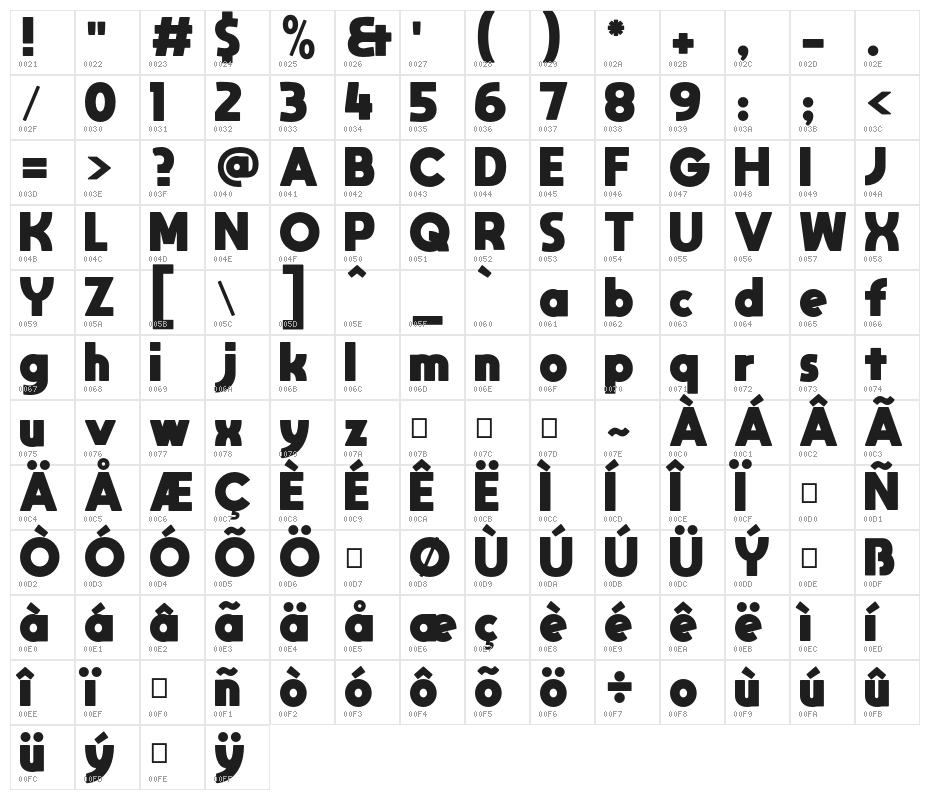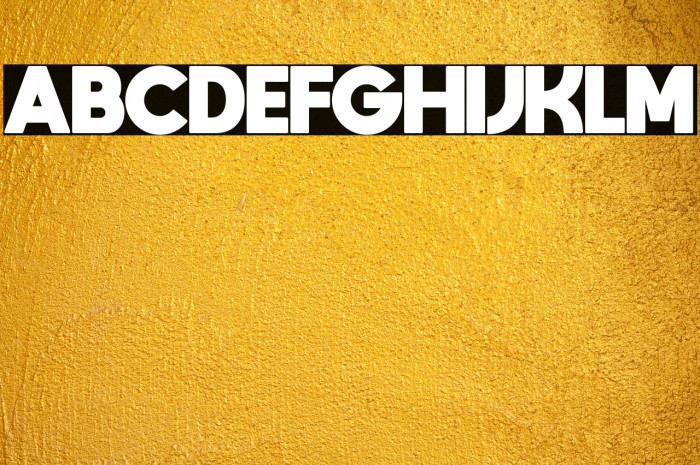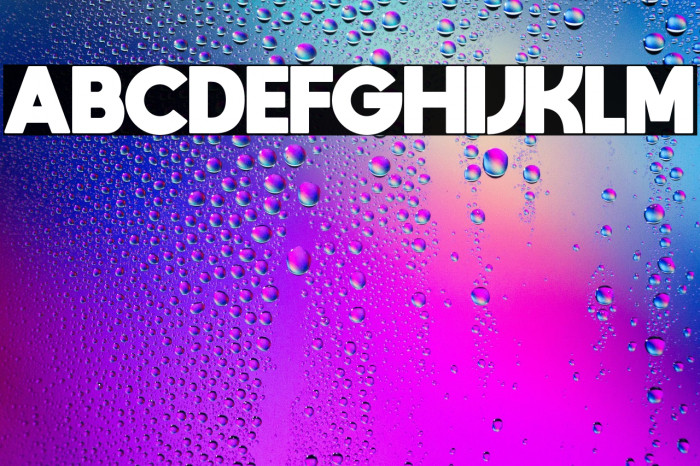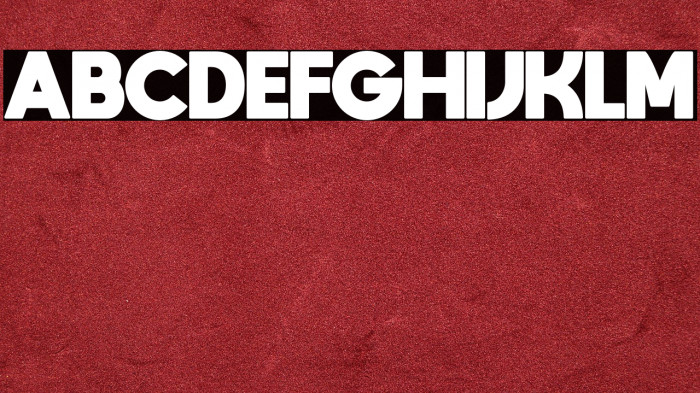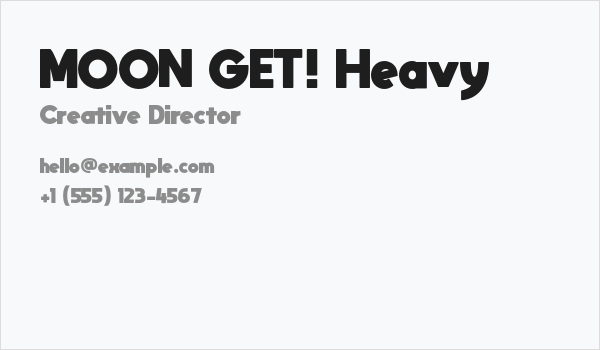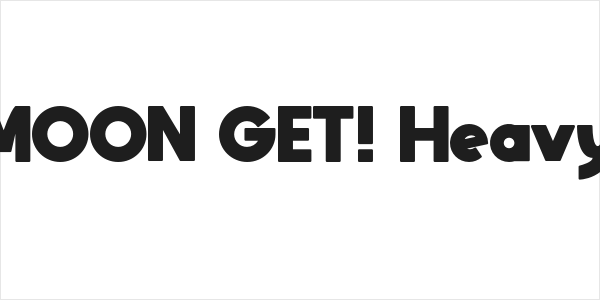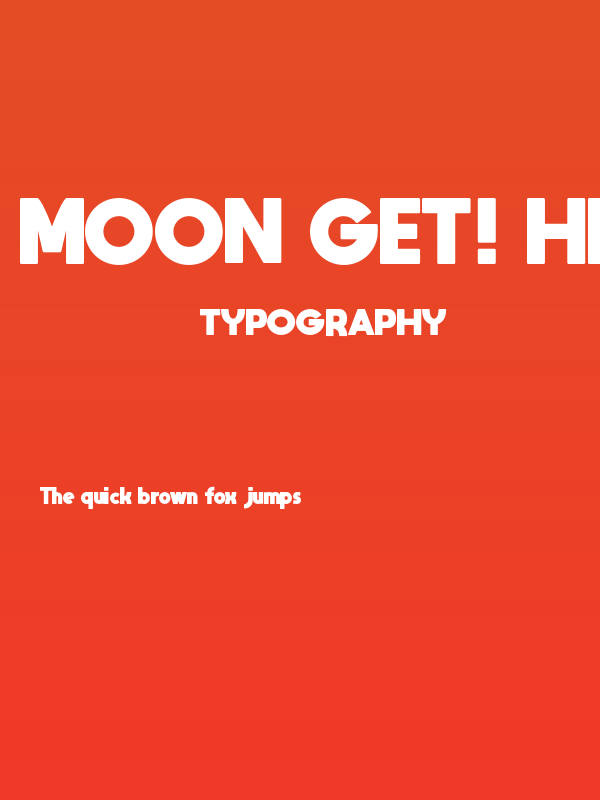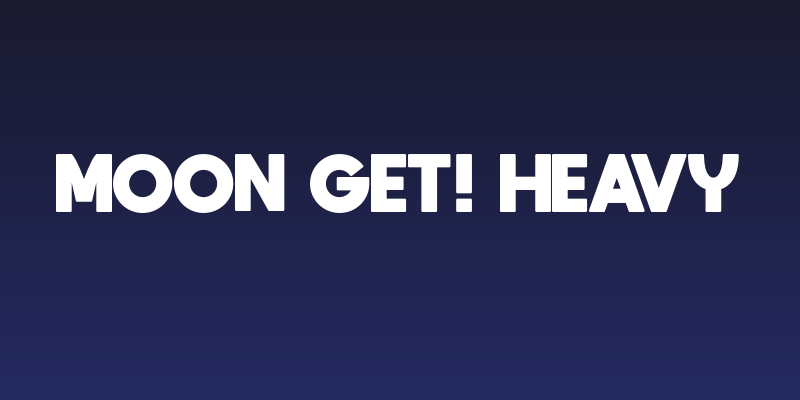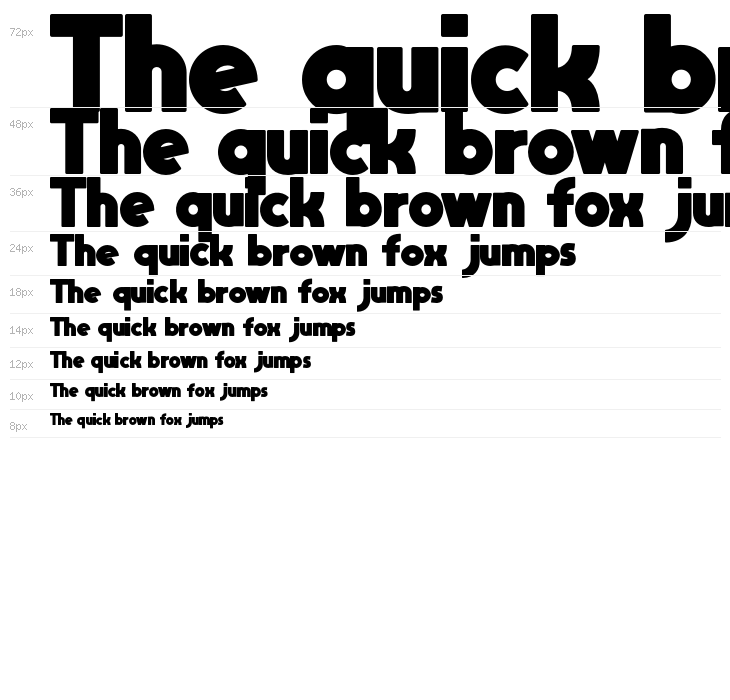
MOON GET! Heavy Font
MOON GET! Heavy Description
This font features bold, rounded characters that exude a strong and modern presence. The uppercase and lowercase letters are consistent in their weight, providing a uniform appearance across all text. The numbers and special characters maintain the same boldness, ensuring readability and impact. The rounded edges give it a friendly and approachable feel, making it suitable for various design applications. Its heavy weight and solid structure make it ideal for grabbing attention, while the smooth curves add a touch of softness to its overall look.
| Proposed Projects | Ideal for branding, headlines, posters, and any design that requires a strong visual impact. |